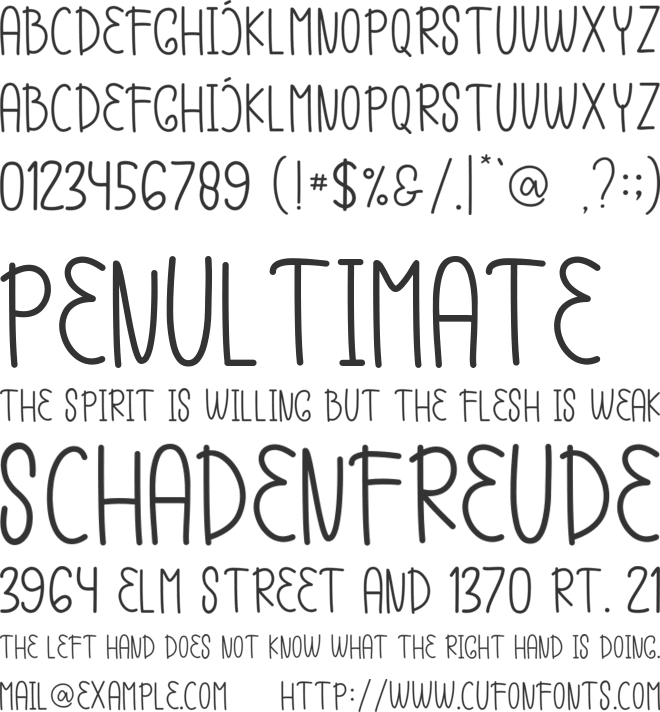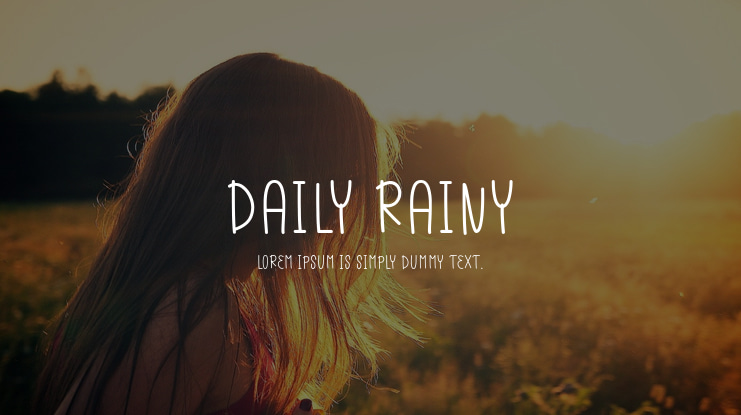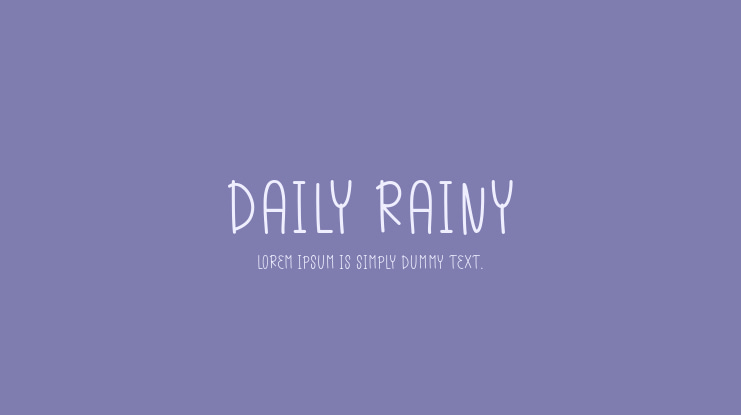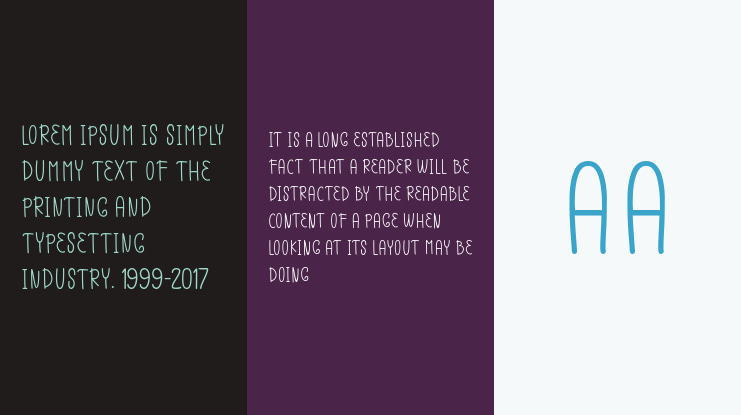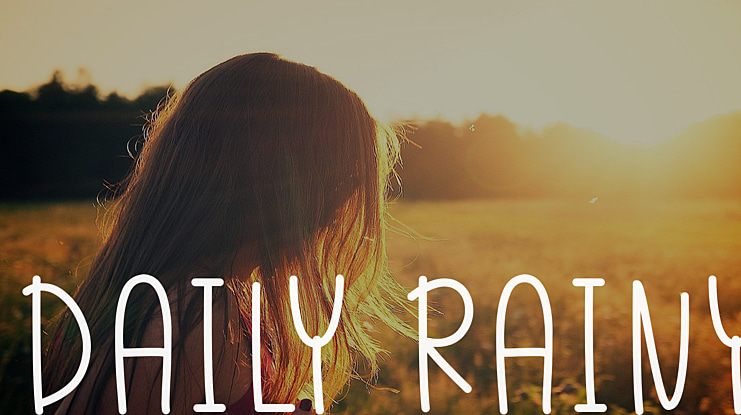
Daily Rainy Font
Daily Rainy is a quirky and neat handwritten font. It is suitable for any branding, product packaging, invitation, quote, t-shirt, label, poster, logo that you wish to develop.